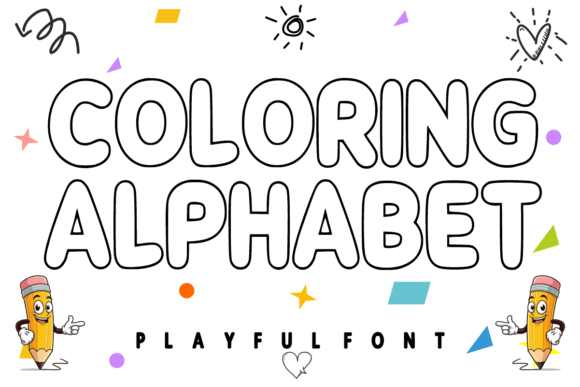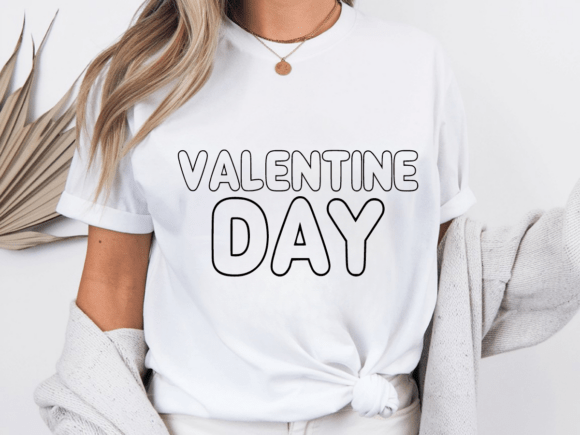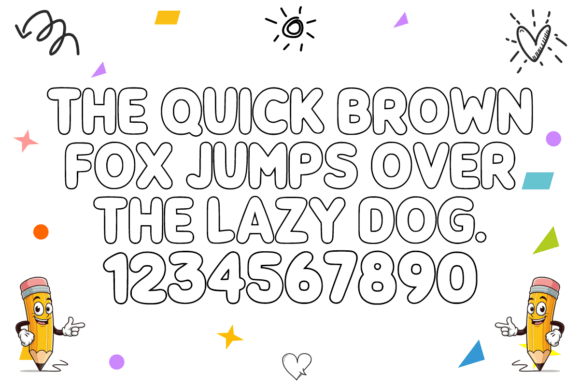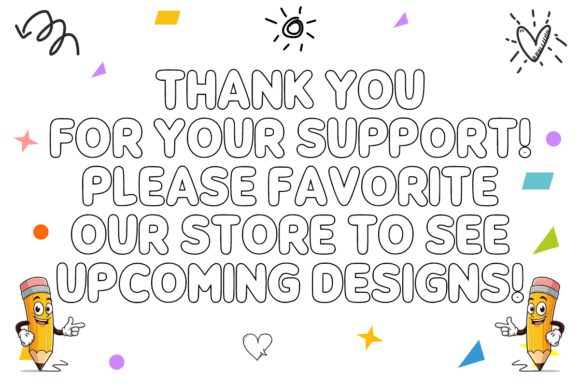
Introduction to Outline Display Font
Remember the excitement of creating colorful flashcards in elementary school or designing your own custom t-shirts with fun graphics? For designers, educators, and parents, those memories are a testament to the power of creativity and self-expression. And now, with the Outline Display Font, you can bring your imagination to life in a whole new way.
As a bold, rounded display font with a clean “hollow” outline style, Outline Display Font is perfect for any project that needs a modern, friendly touch. Its high-quality design is optimized for cutting machines and popular design apps, making it a valuable resource for any creative project. Whether you’re working on teacher resources, kids’ apparel, or social media branding, this versatile font is sure to elevate your designs and make learning and creating more exciting.
Key Features of Outline Display Font
- High-quality design resource ideal for creative projects requiring bold and eye-catching typography.
- Comes with a transparent background, allowing for seamless integration into various design applications.
- Features a range of font sizes and resolutions, from 72 dpi to 300 dpi, catering to various design needs.
- Unique outline design style, adding a touch of sophistication and elegance to any creative project.
- Perfect for use in graphic design, web design, and digital art, where a bold and striking font is required.
Honest Review: Outline Display Font
I recently had the chance to work with the Outline Display Font, and I must say it’s been a great addition to my design resource collection. This font is perfect for creative projects that require a touch of sophistication and elegance.
What works well is its versatility in being used for both digital and print projects. The Outline Display Font comes with a transparent background, making it easy to overlay text on any image or design. I also appreciate the high quality of the font, which ensures that it looks great on various devices and screens.
- ✨ Easy to use and customize
- ✨ Works well with transparent backgrounds
- ✨ High quality and scalable
One of the limitations I’ve encountered is the limited number of font weights and styles available. This can make it difficult to achieve the desired look for certain creative projects. However, this is a minor issue, and the font still offers a lot of flexibility.
Overall, I’m impressed with the Outline Display Font, and I would definitely recommend it to designers looking for a high-quality font for their creative projects. The free download is also a great bonus, making it a valuable resource for designers on a budget.
Outline Display Font
Outline Display Font is a high-quality design resource perfect for adding a touch of elegance to your creative project. With its transparent background and bold lines, it’s ideal for creating eye-catching titles, headings, and quotes.
Tips for Getting the Most Out of Outline Display Font
Here are some tips to help you get the most out of Outline Display Font:
- Use it sparingly to create a bold statement.
- Combine it with other fonts for a unique look.
- Experiment with different font sizes and colors.
Outline Display Font is perfect for:
- Creating titles and headings.
- Designing quotes and phrases.
- Adding a touch of elegance to your designs.
Alternatives to Outline Display Font
Fontin is a high-quality, sans-serif font that works well for creative projects requiring a clean and modern design resource. It features a transparent background, making it suitable for designs where the text will be layered over other elements. When to use: headings, titles, and short paragraphs. Compared to Outline Display Font, Fontin has a more subtle approach, using subtle strokes to create a crisp and clear appearance.
Pacifico is a beautiful, cursive font that’s perfect for adding a touch of elegance to your design. It’s a great choice for creative projects that require a high-quality design resource. When to use: titles, headings, and short paragraphs. Compared to Outline Display Font, Pacifico has a more organic and flowing feel, making it ideal for designs that need a softer, more whimsical touch.
So why wait? Download Outline Display Font today and discover the limitless creative potential it has to offer. With its free download and seamless integration into any design software, you can start experimenting with this incredible font right away. Whether you’re a seasoned designer or just starting out, Outline Display Font is an essential addition to your design toolkit. Take the first step towards elevating your creative project with this stunning Outline Display Font – your designs will thank you!